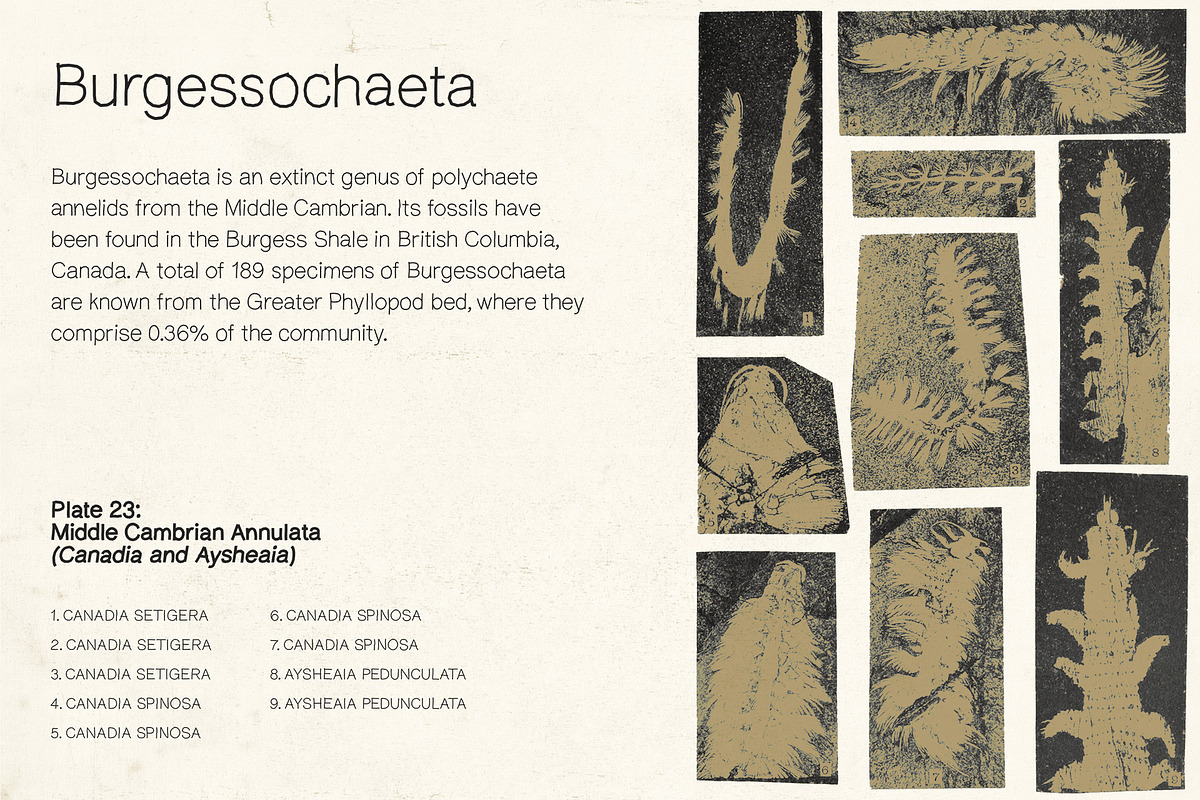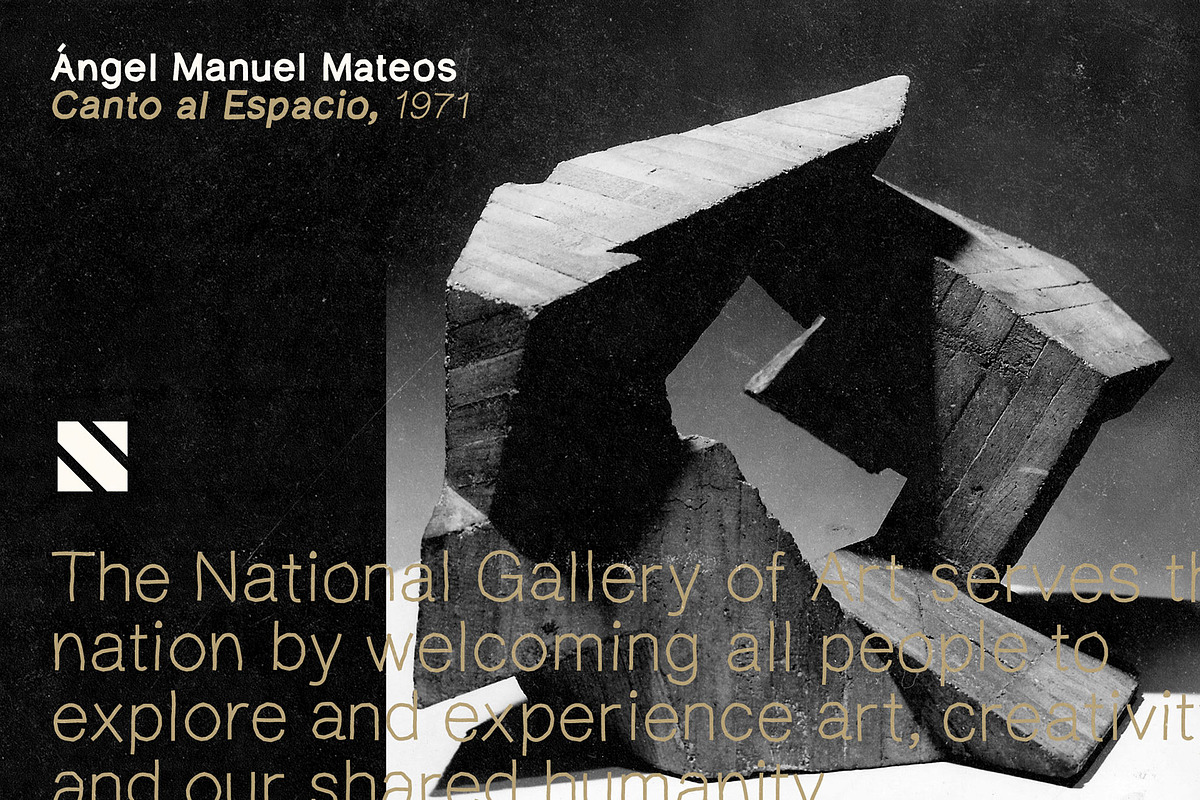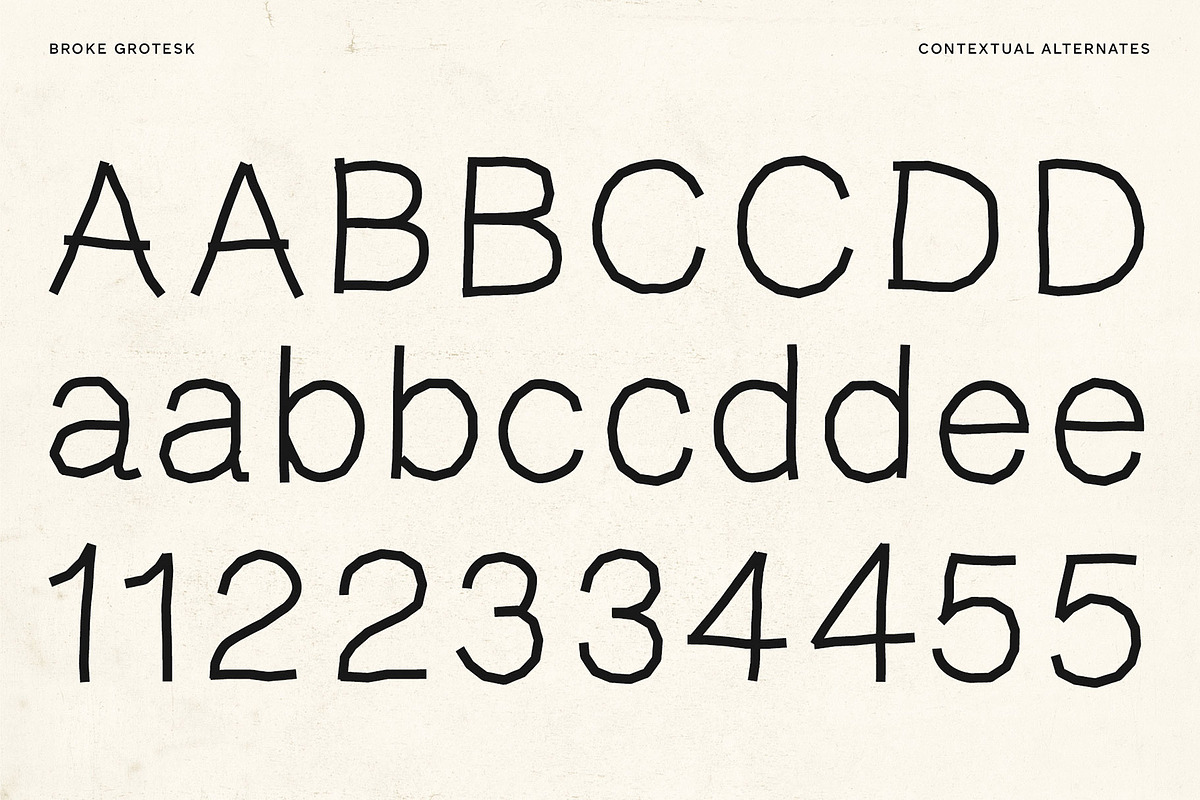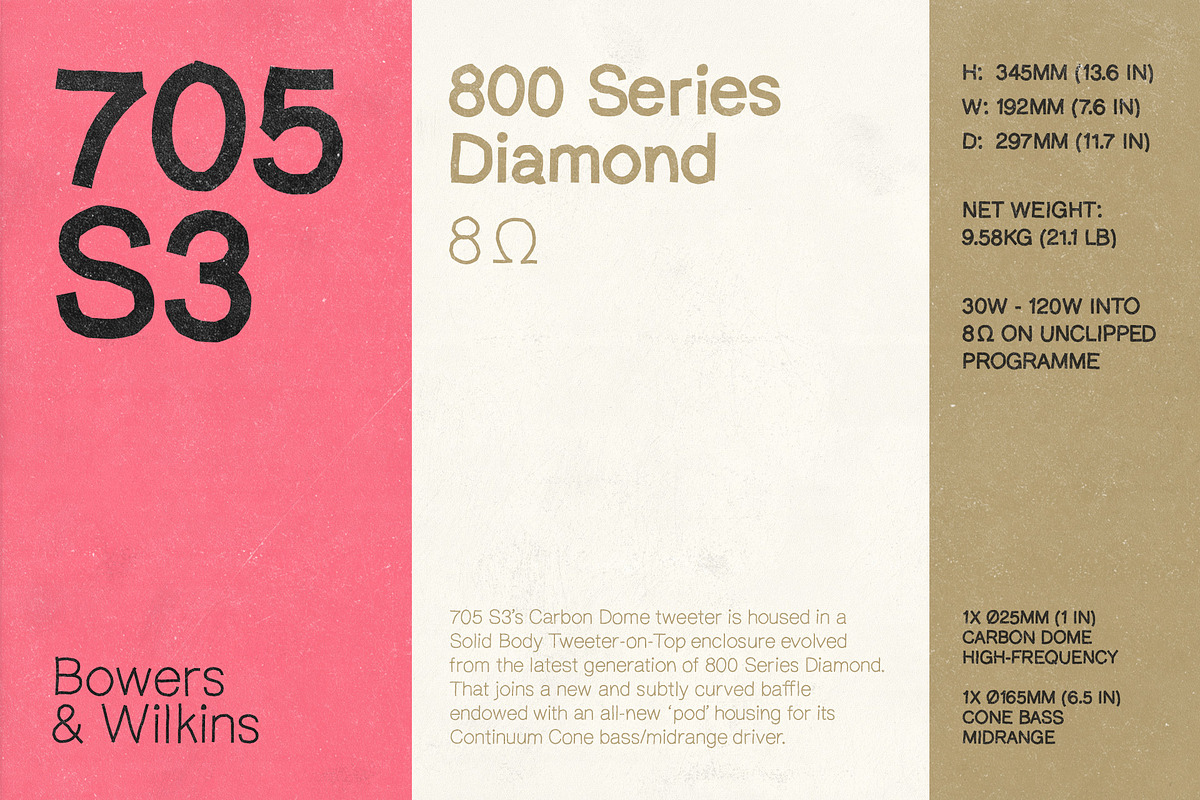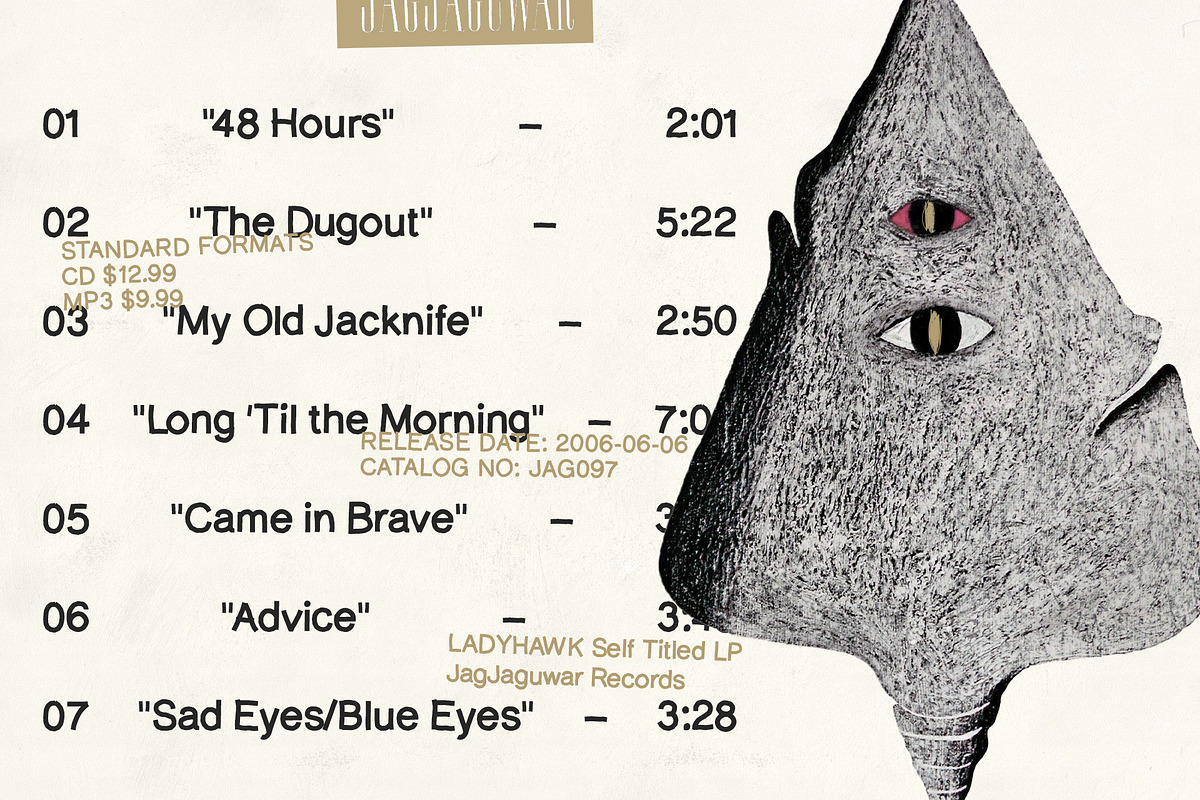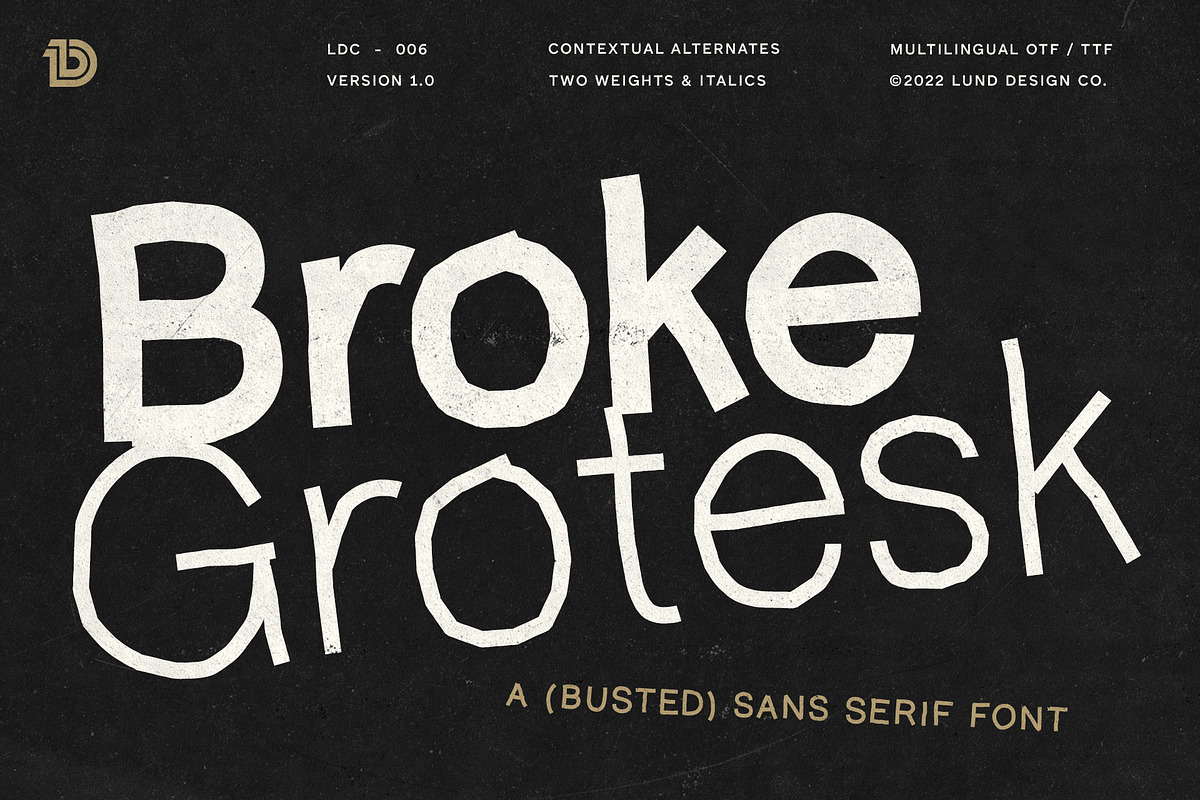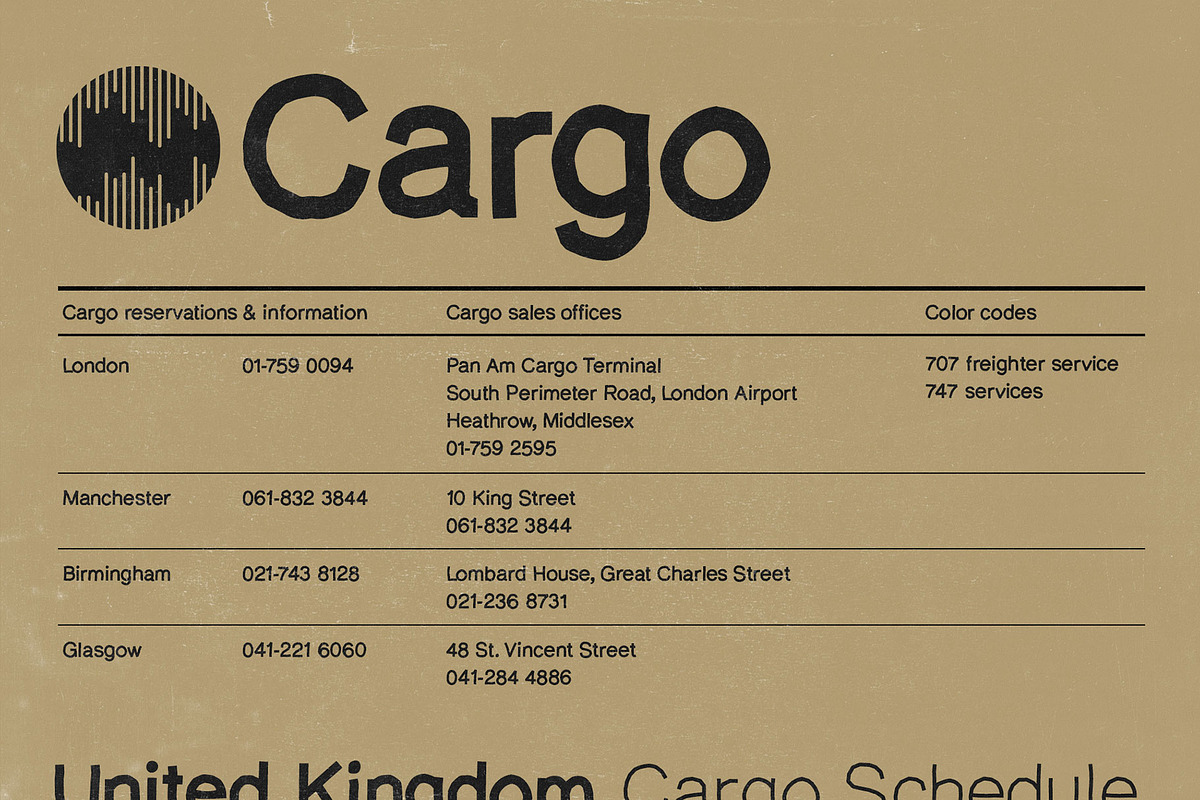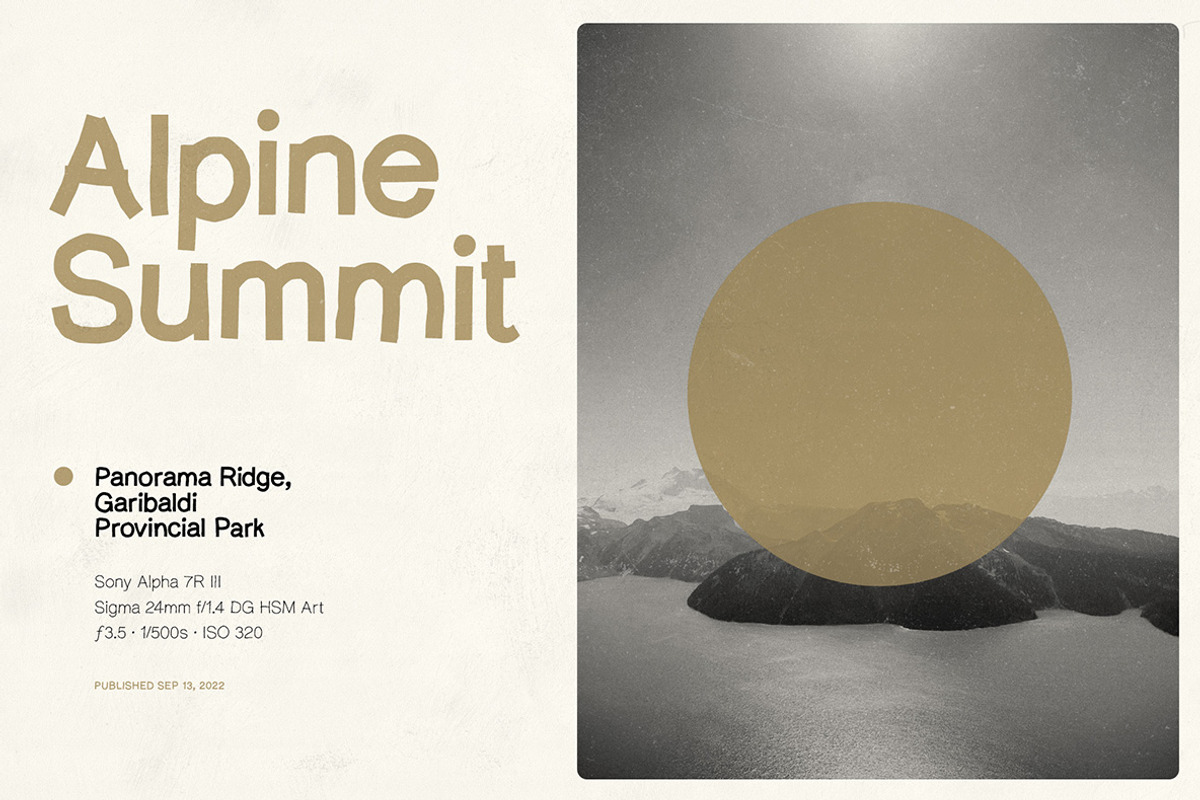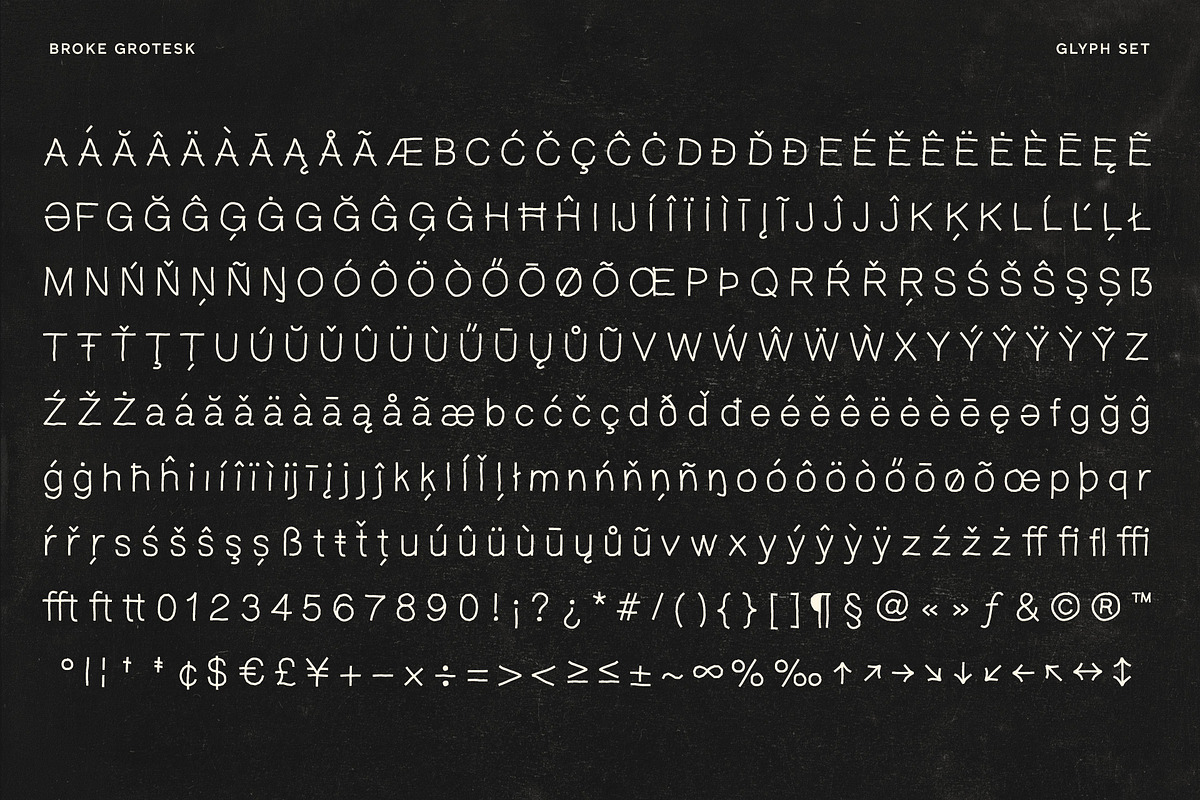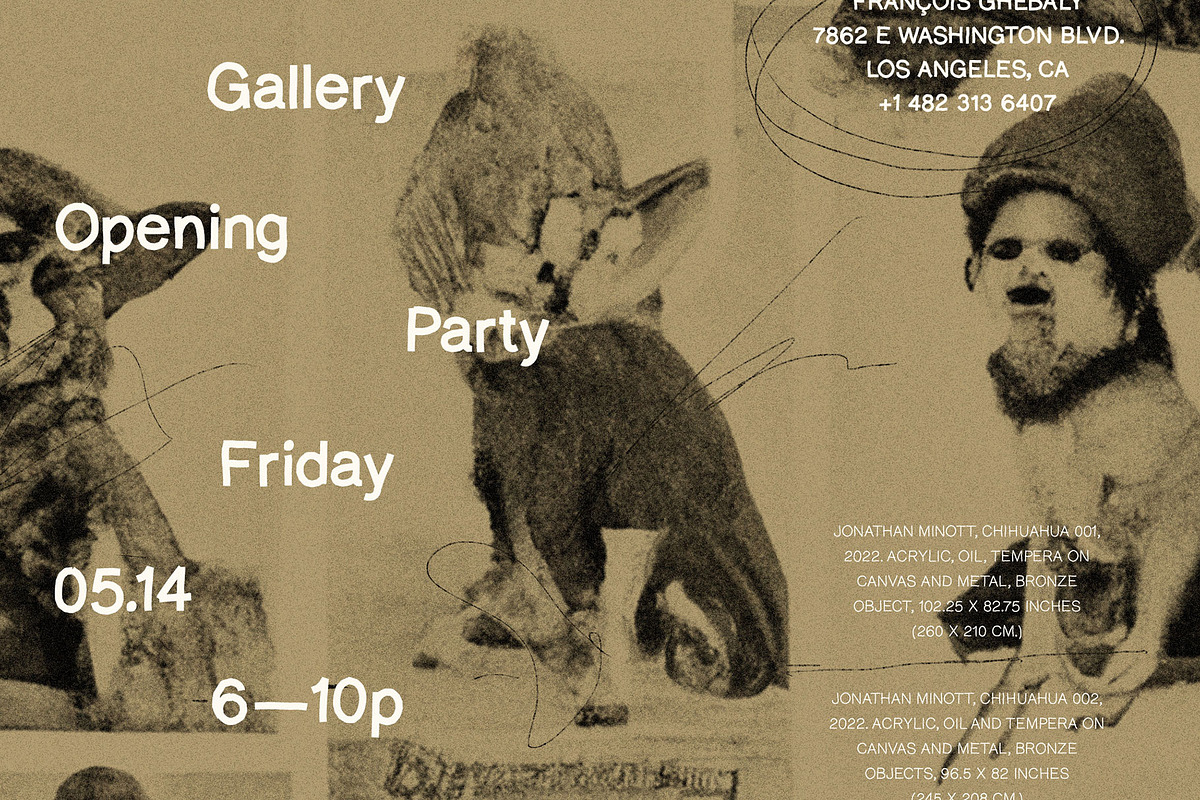
BROKE GROTESK Handmade Sans Serif
Broke Grotesk is a hand-drawn sans serif typeface. It is flawed by design–yet very legible–giving any project a human touch as an alternative to a standard sans serif.
- 2 weights (Regular, Bold)
- Italics
- Contextual alternates
- Accents & multilingual characters.
With a sense of humor and warmth, as well as great readability, this hand-drawn sans serif is great for film titles, posters, packaging, magazines, websites and more.